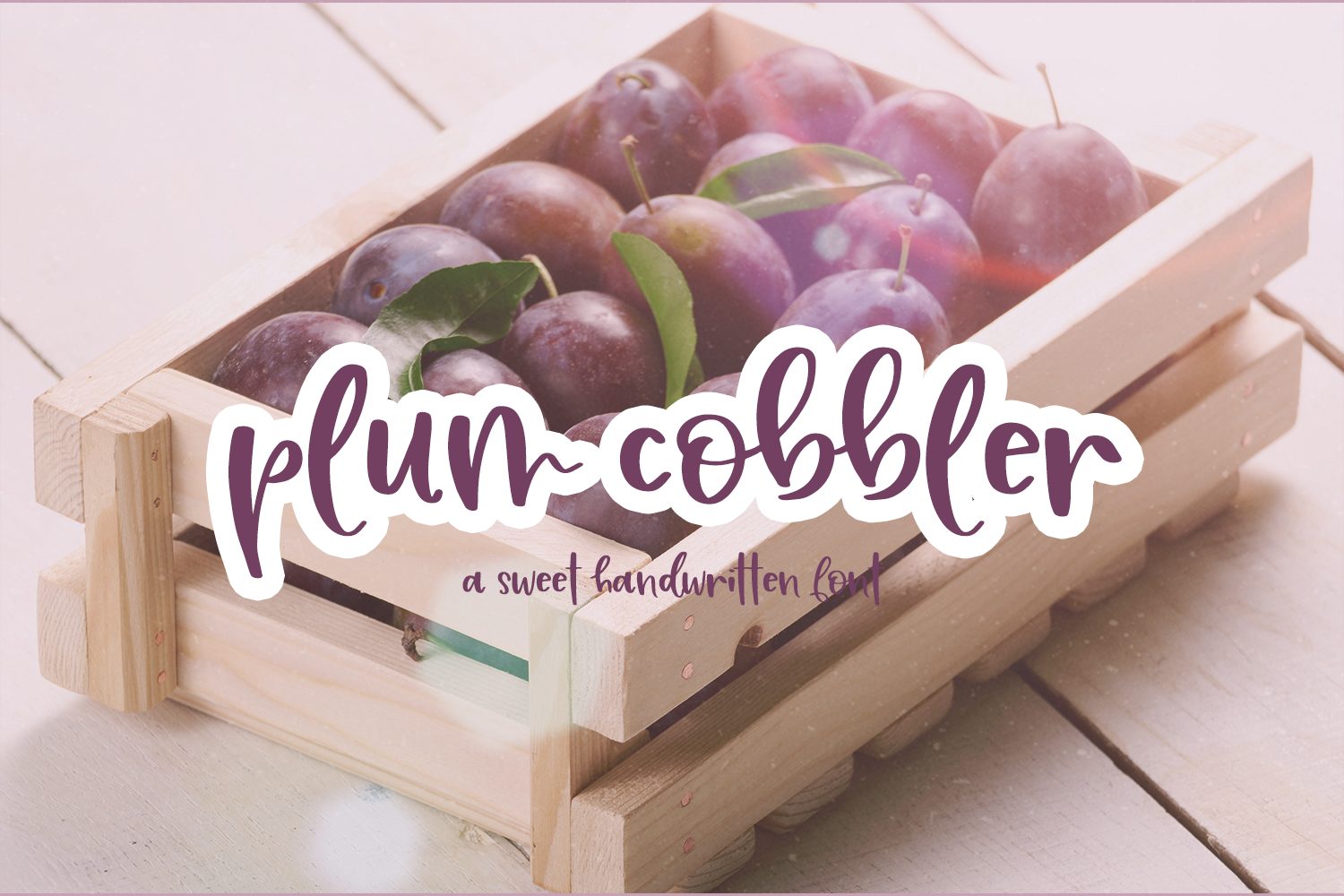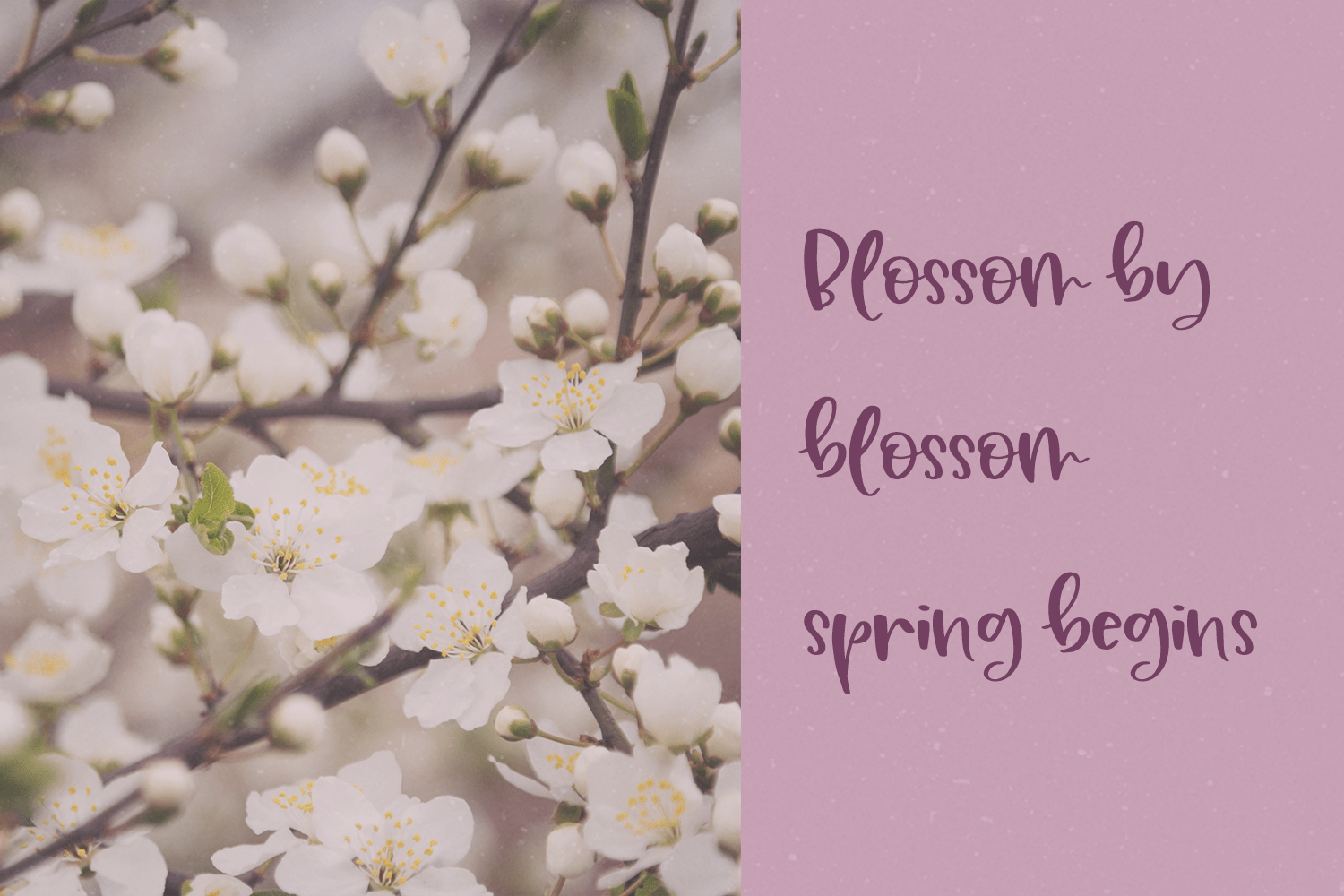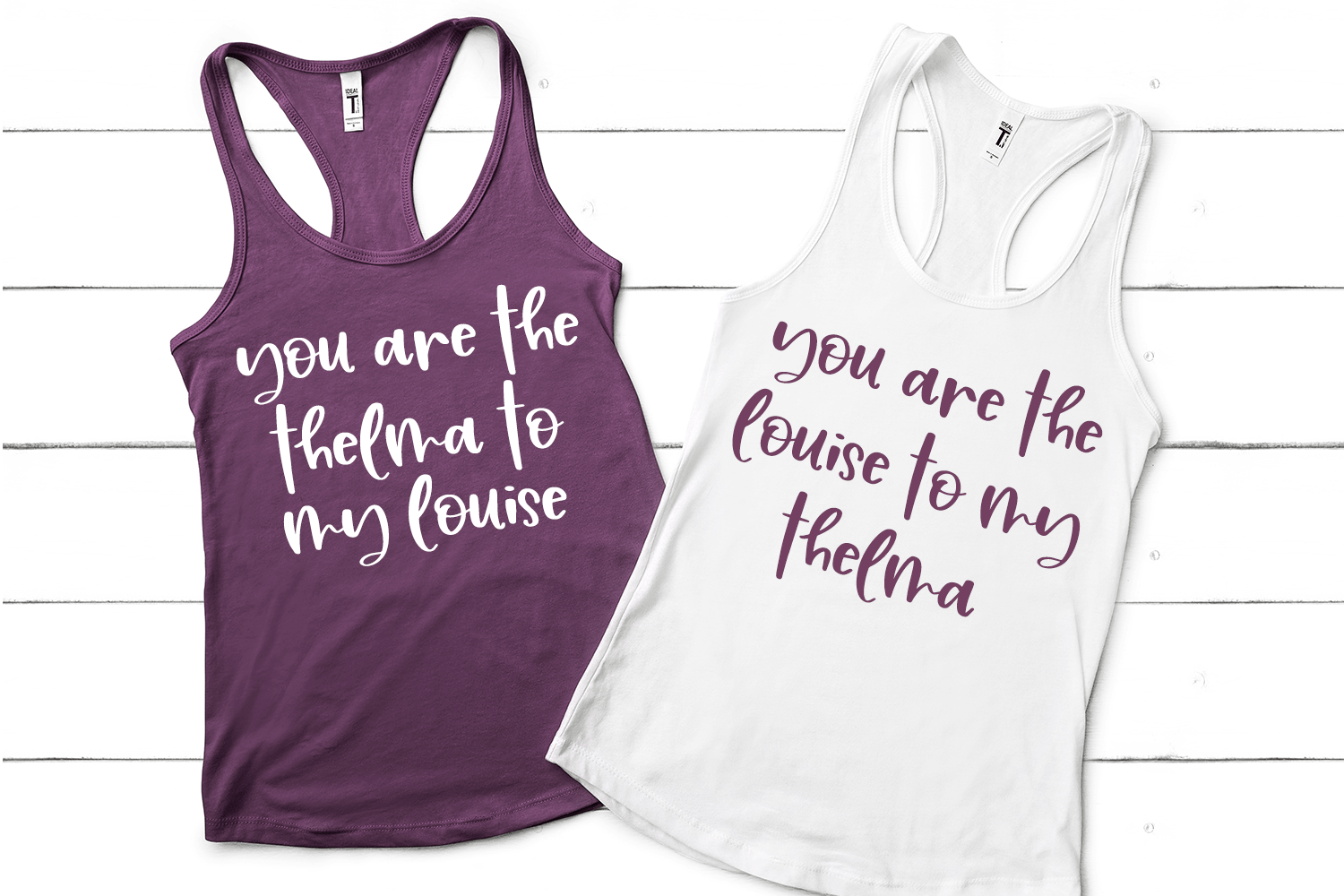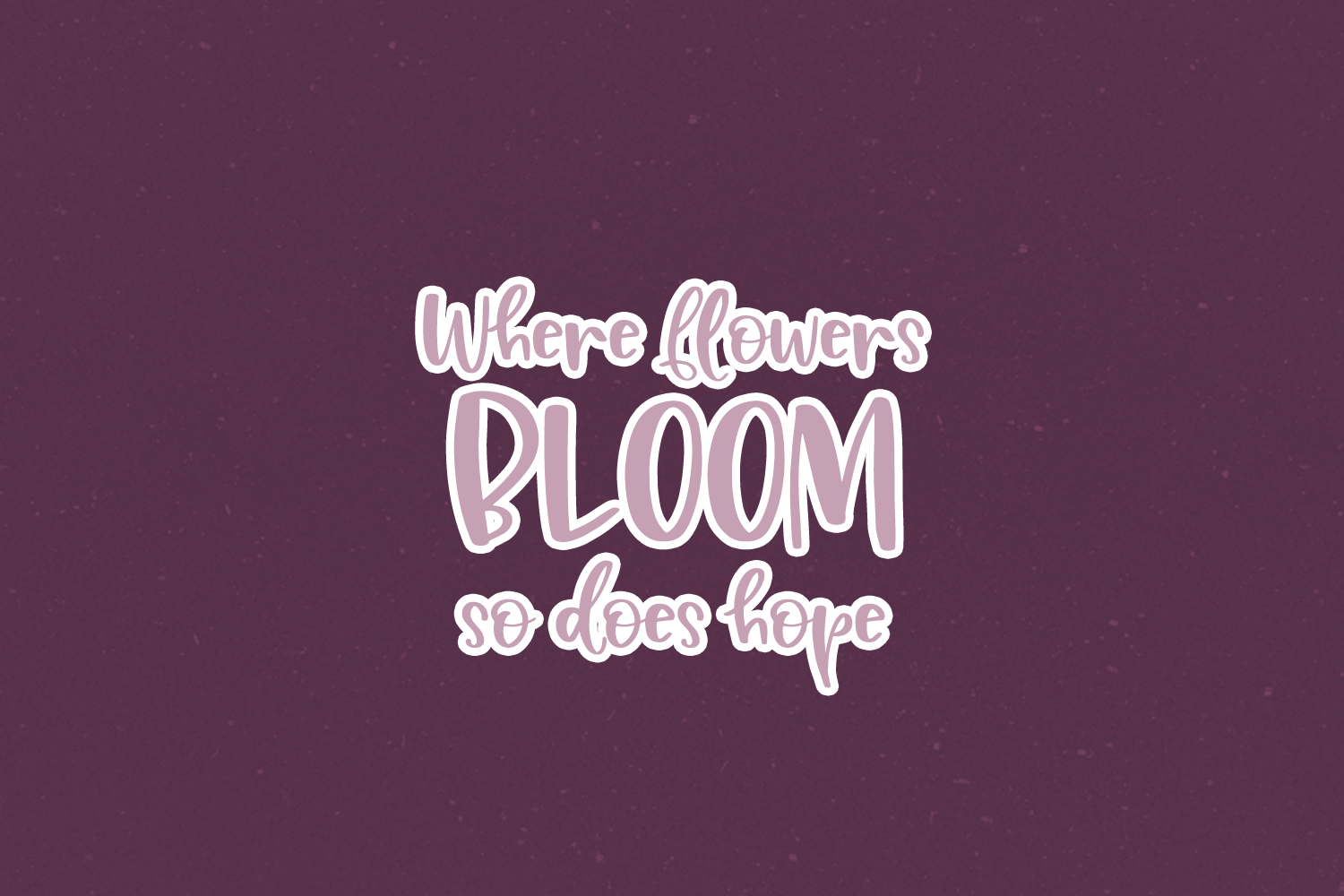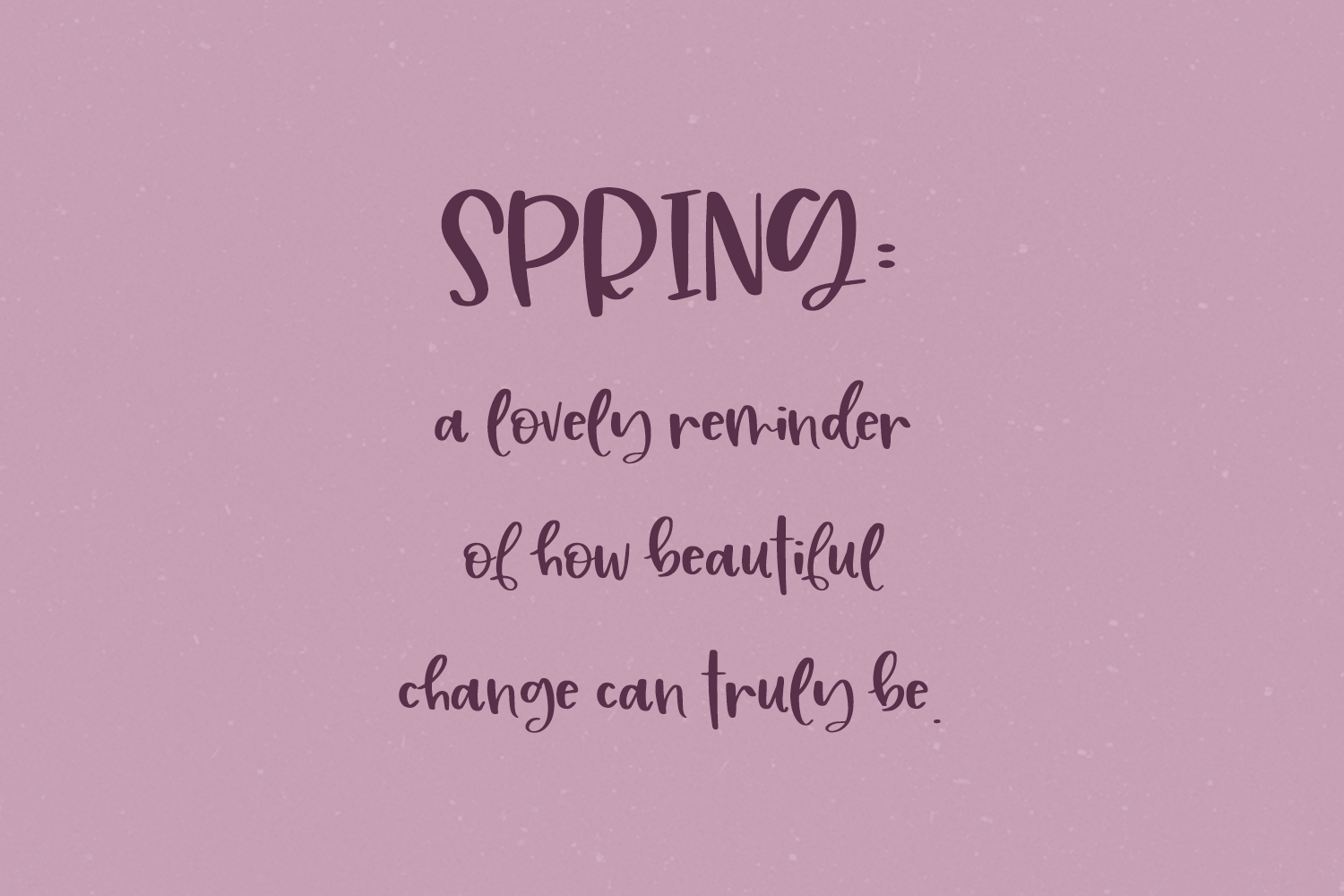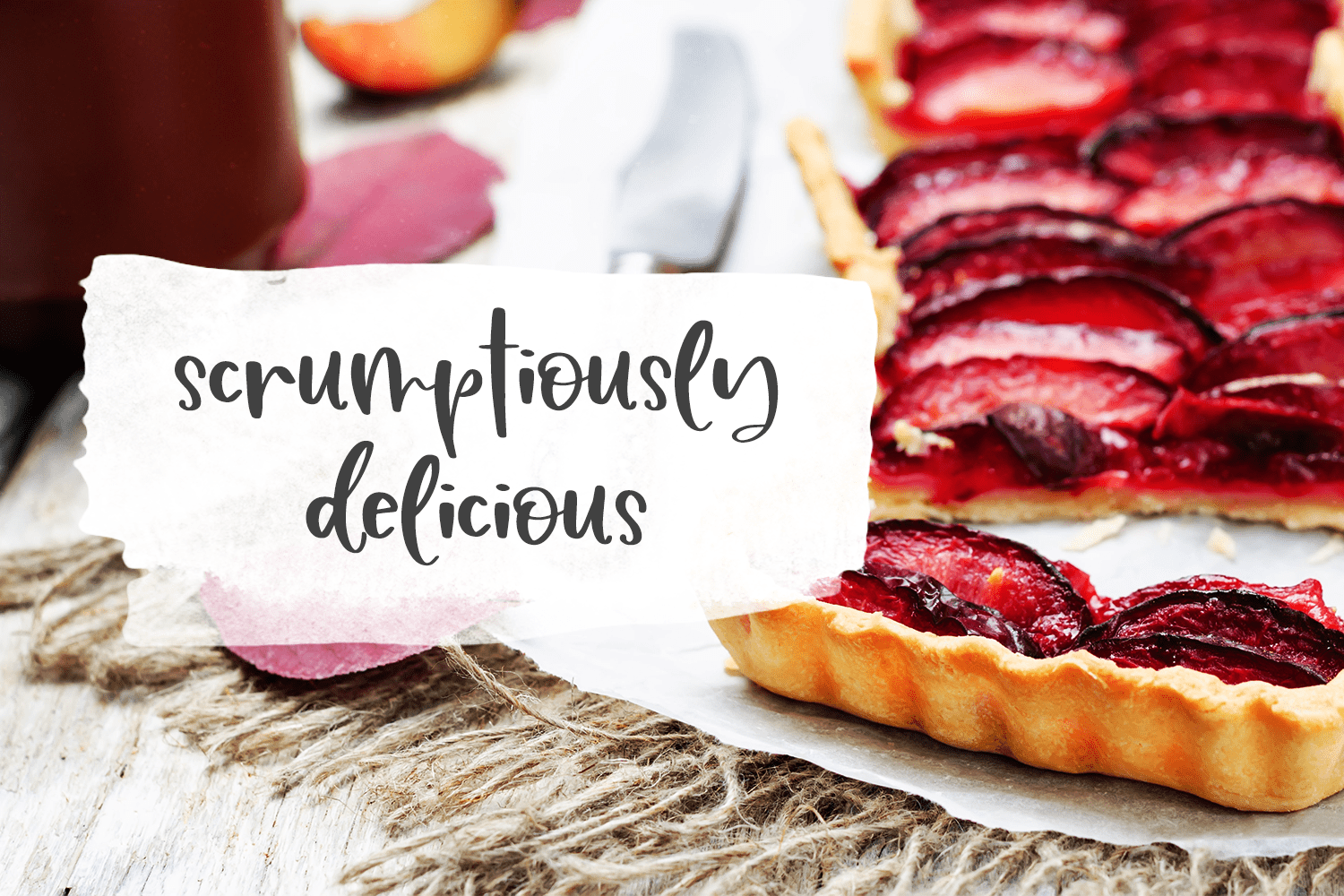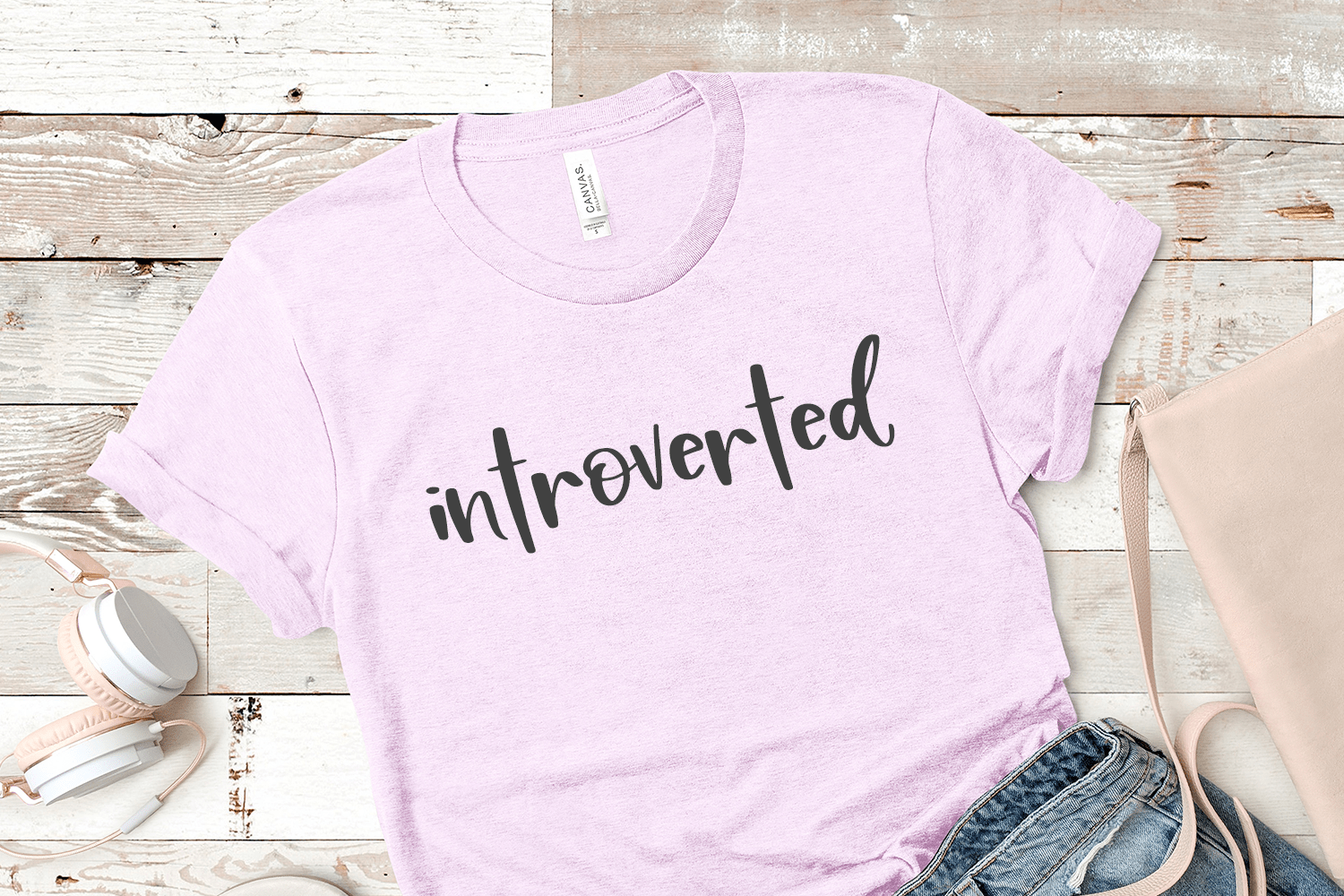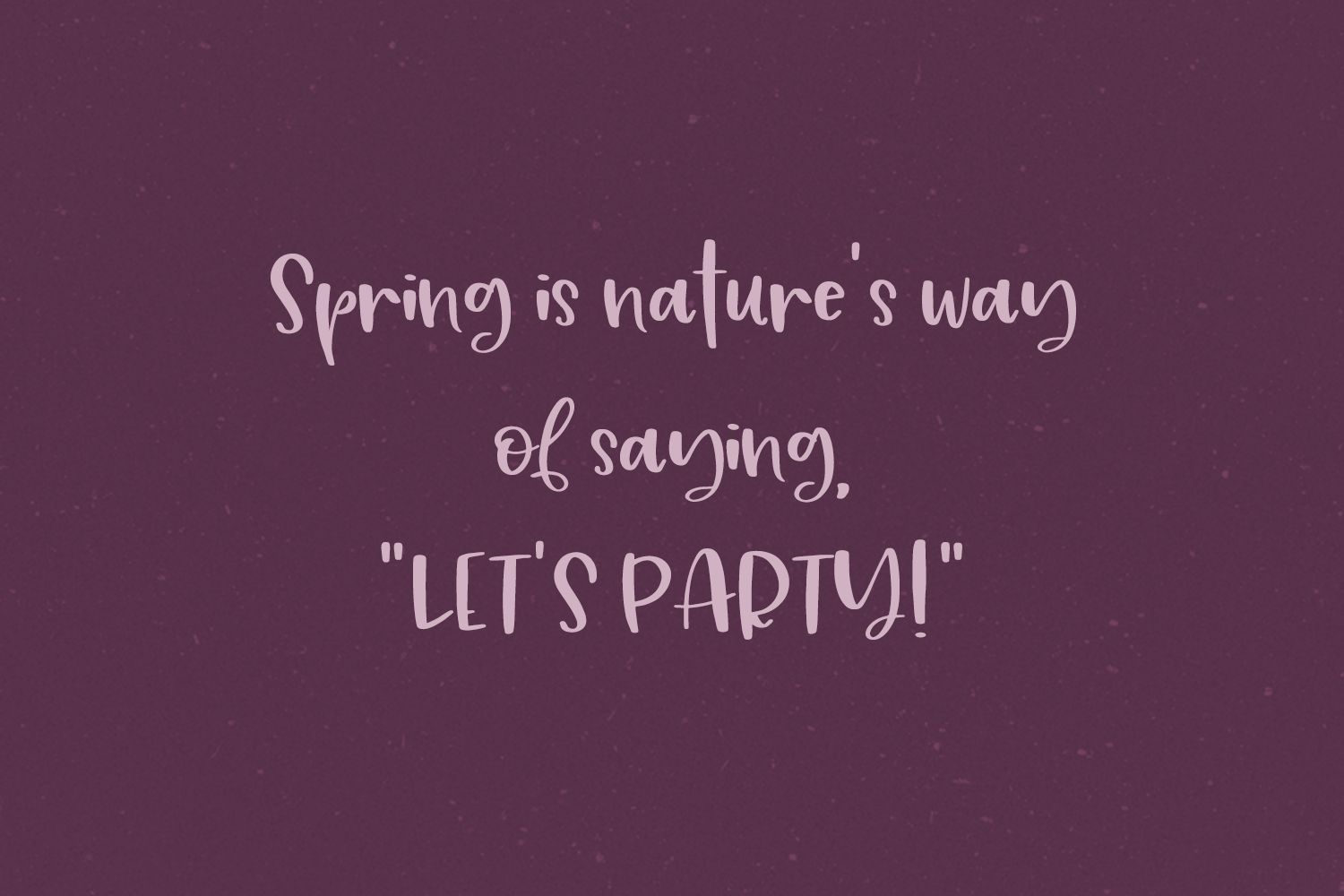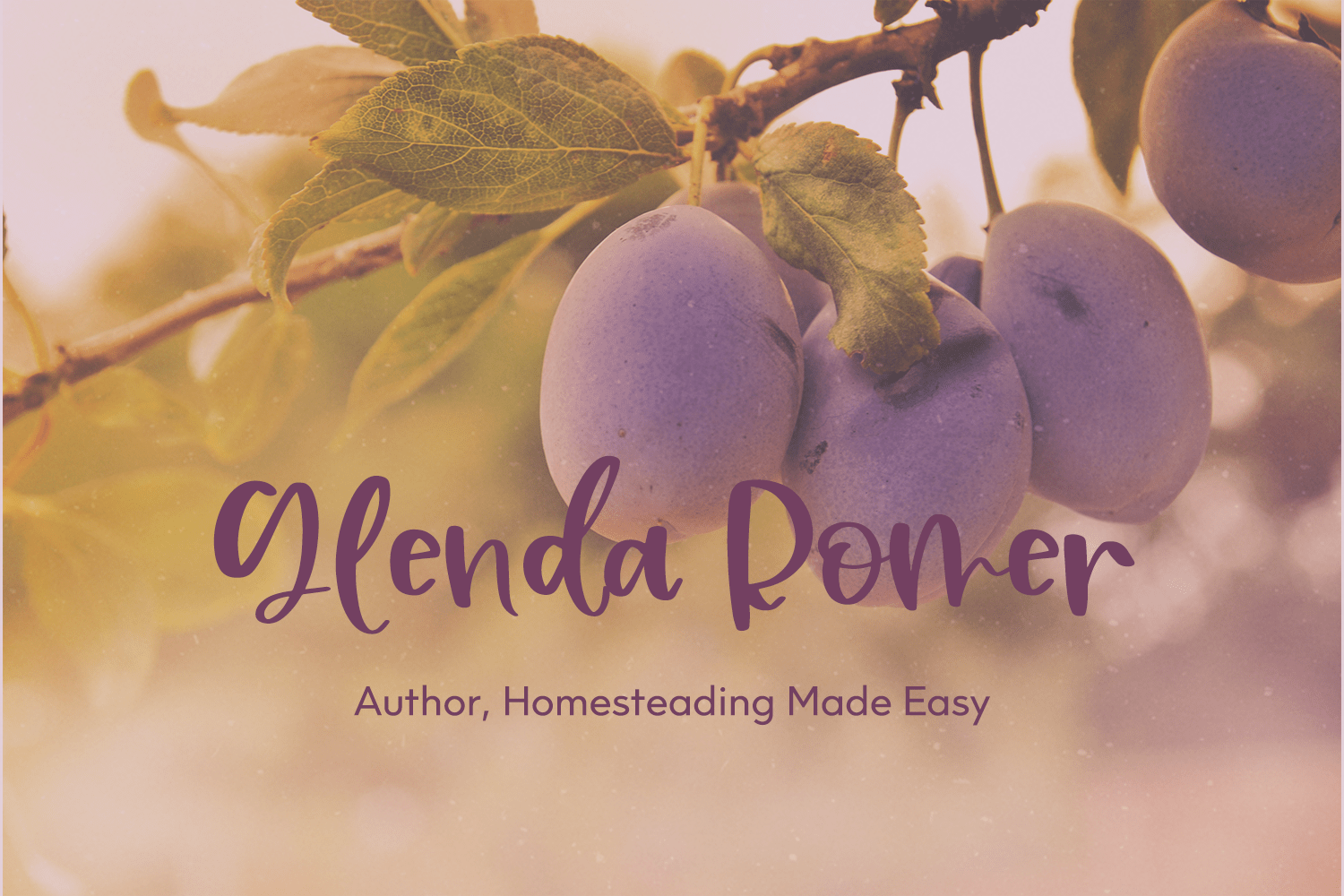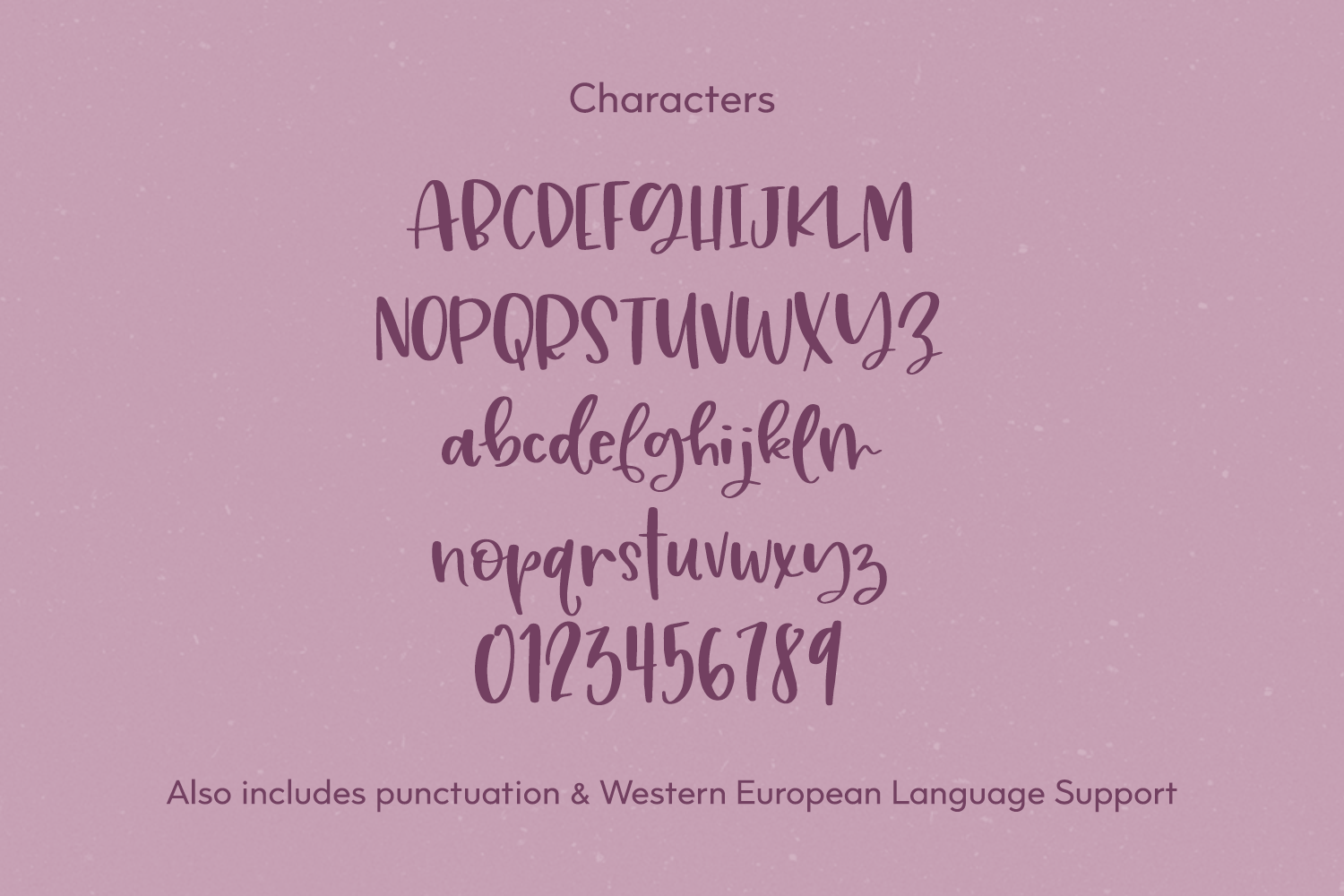
Plum Cobbler Script is best for:
– quote graphics for social media
– crafting projects
– vinyl cutting on a Cricut or Silhouette machine because it has a super clean, smooth edge
– playful logos + branding
– header elements that need handwritten touch